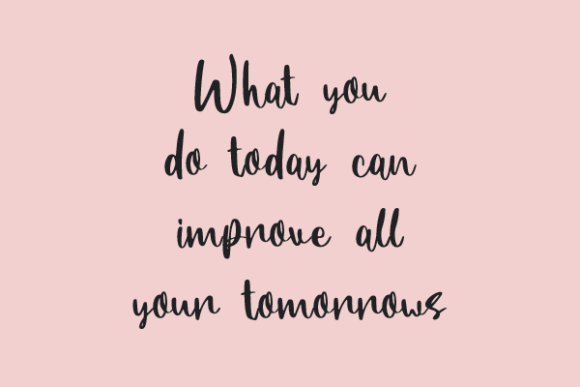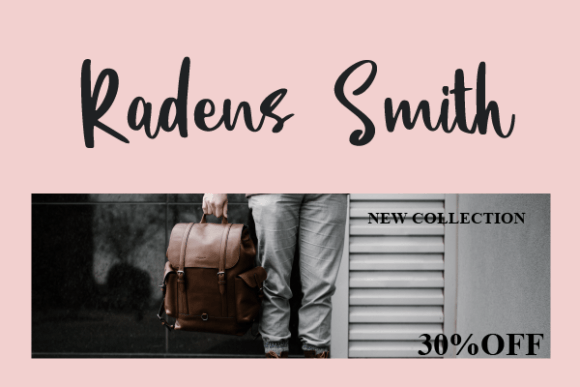
About Audrey Hanifa
Audrey Hanifa is a charming and stylish handwritten script font. Whether you’re using it for crafts, digital design, presentations, or making greeting cards, this font has the potential to become your favorite go-to font, no matter the occasion!